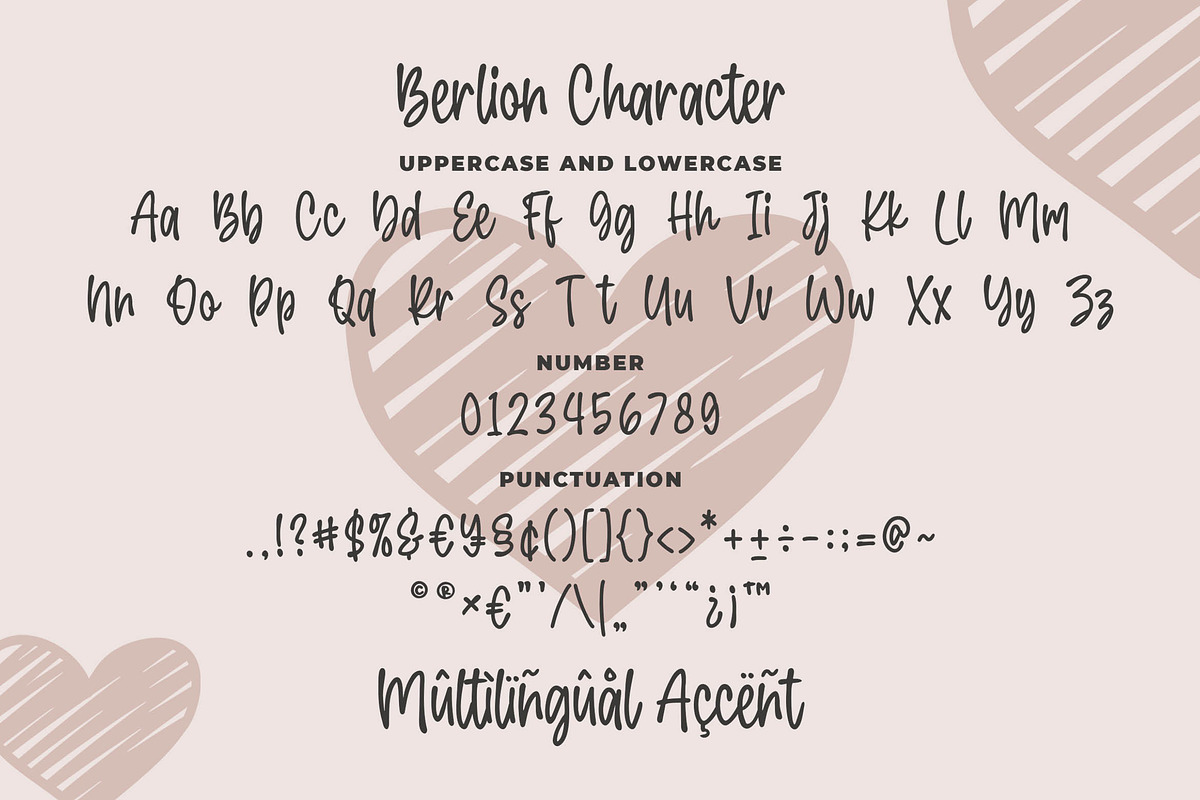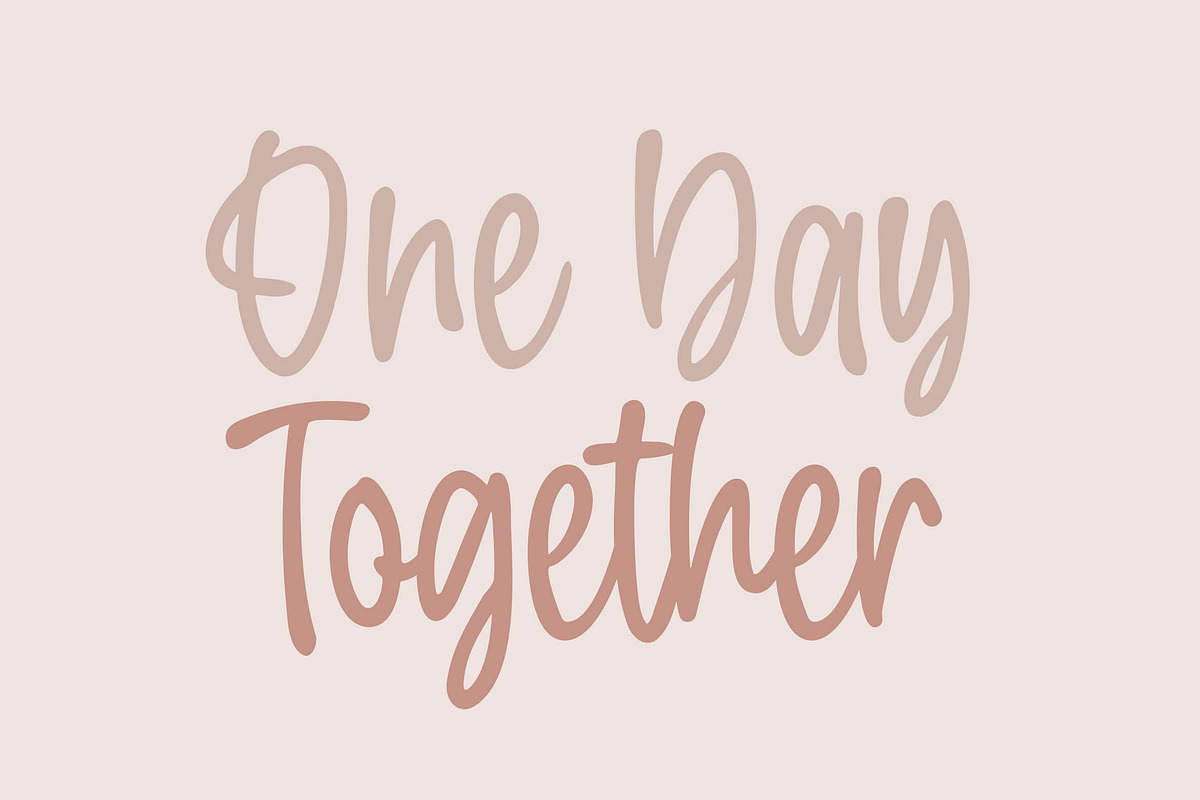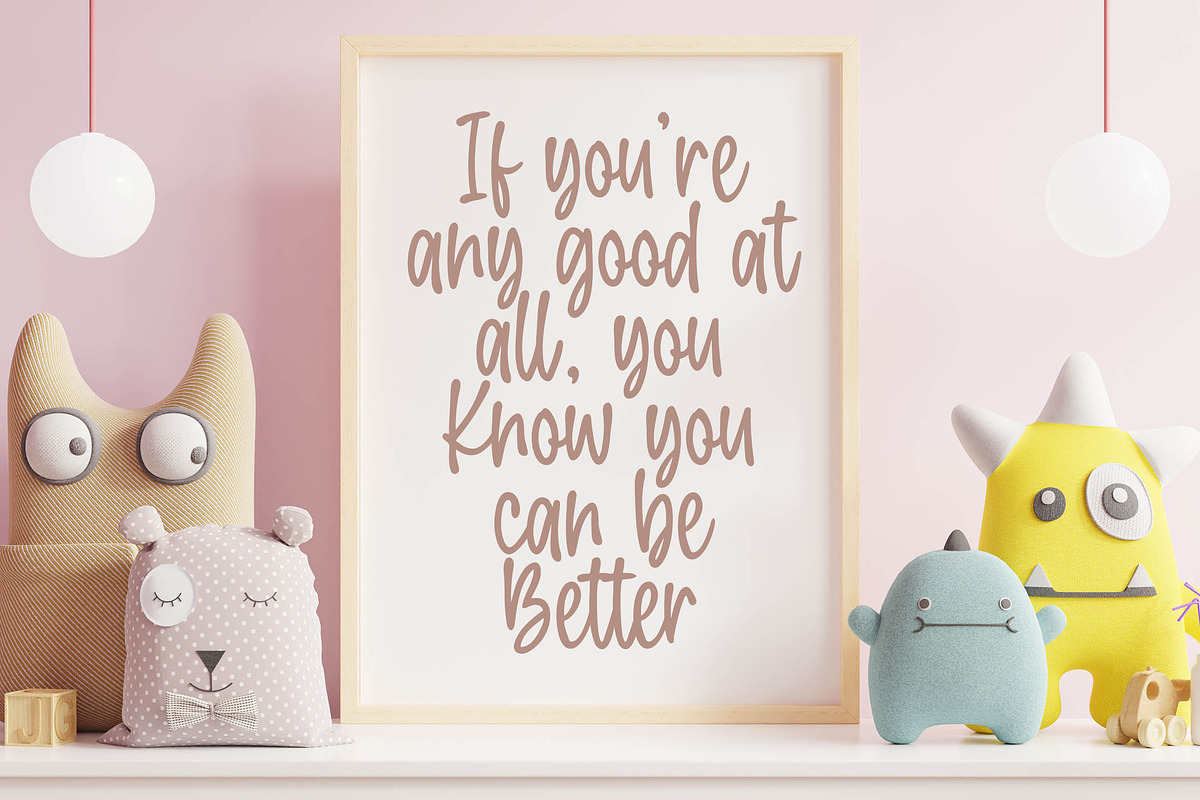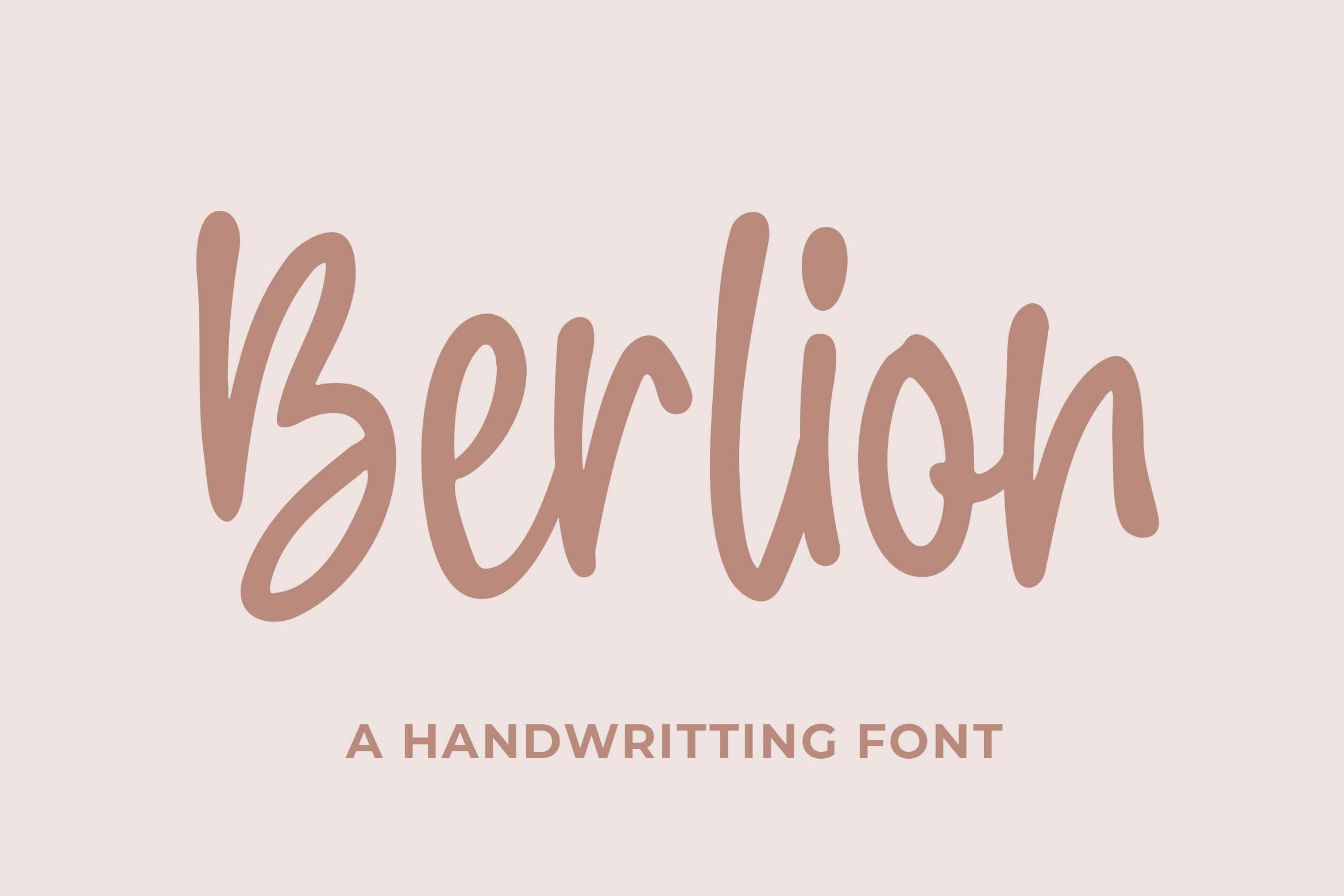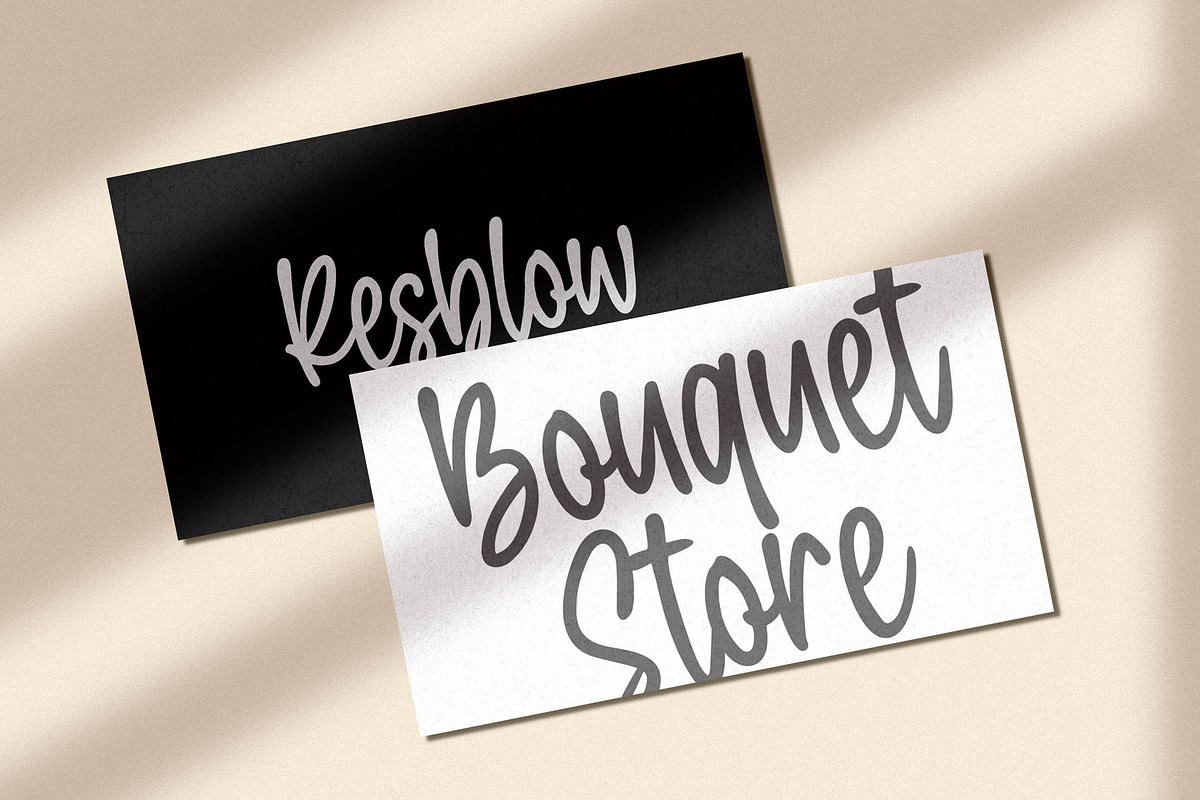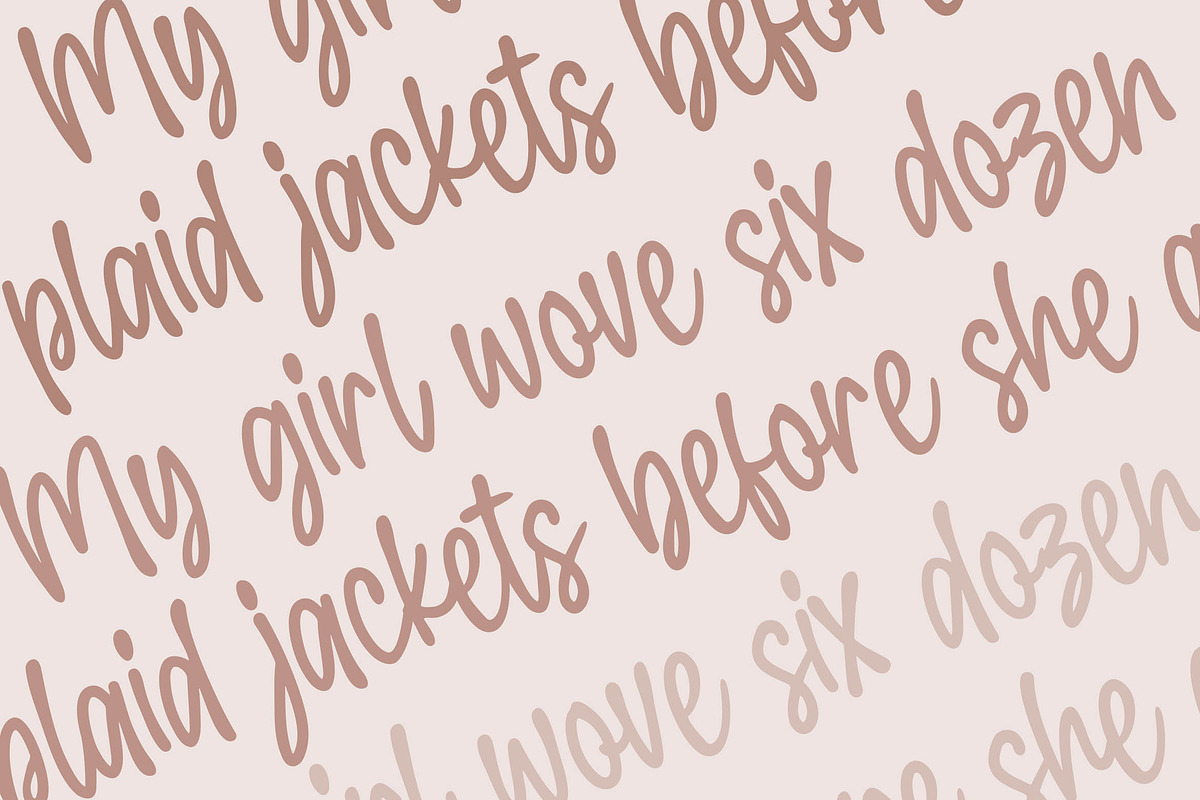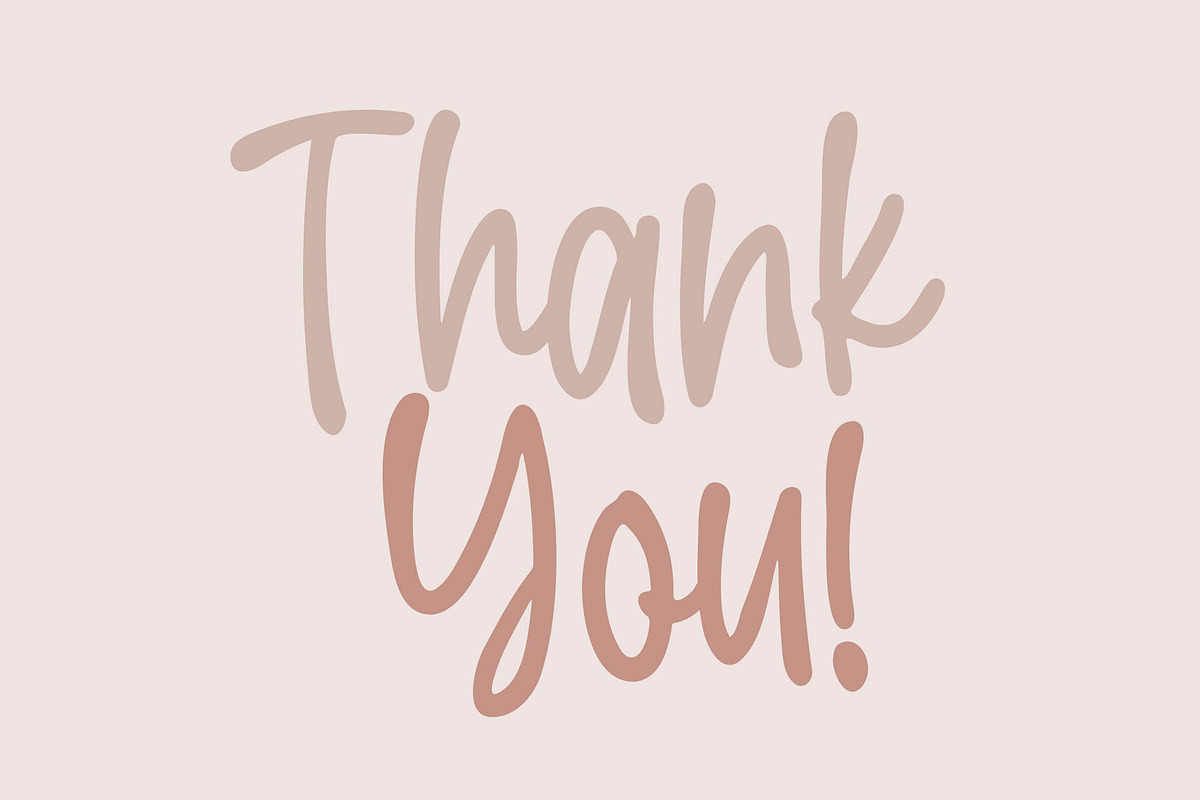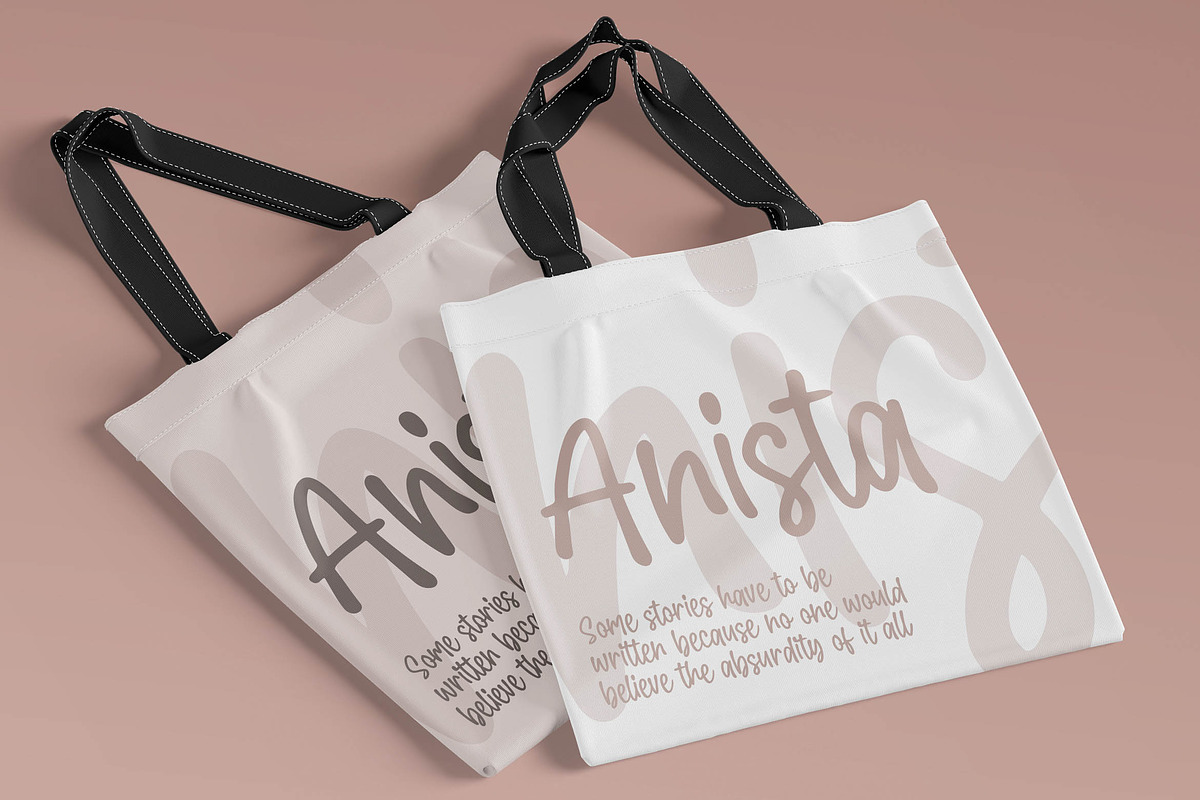
Berlion a Handwritting Script Font
Introducing of our new product the name is Berlion a Handwritting Script Font, Berlion inspired by Bouncy Calligraphy style with a fun theme very good for Logotype, kids poster, flyer, childrenbook, cartoon, comic etc